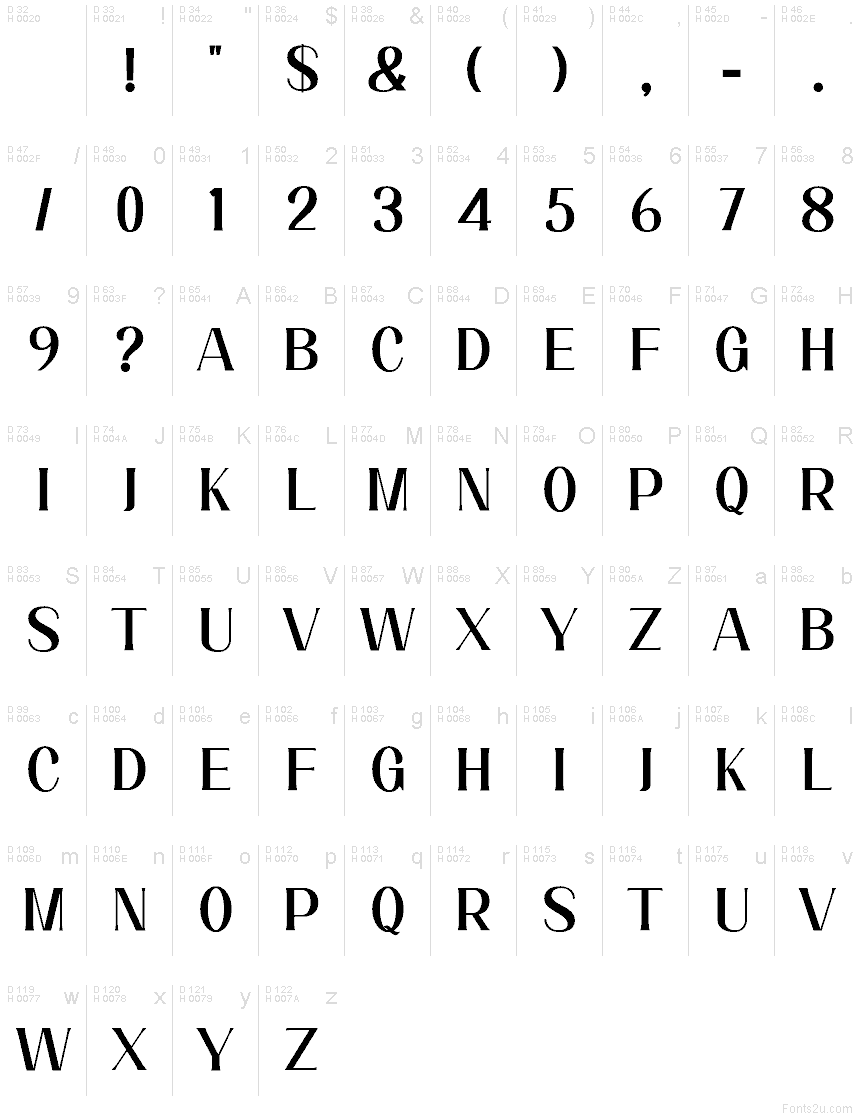
Almost
Almost font by Setyo Wati is a serif typeface with classic origins and timeless appearances. Each character in the collection has unique touches to its design which makes Almost remarkable among classic yet elegant fonts. The premium feel of the ligature-type text is another attribute to capture, use, or showcase through your creations.
Titles, displays, logos, posters, package design prints, labels…etc are examples of final products where this font can be used. Try your own ideas as well while enjoying this free serif font in your creative projects!